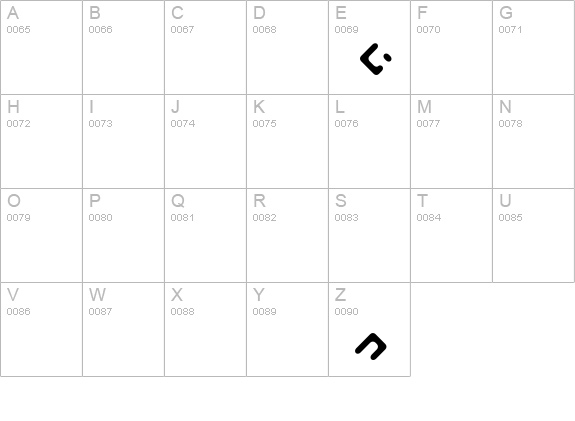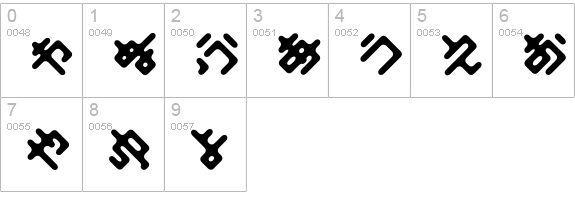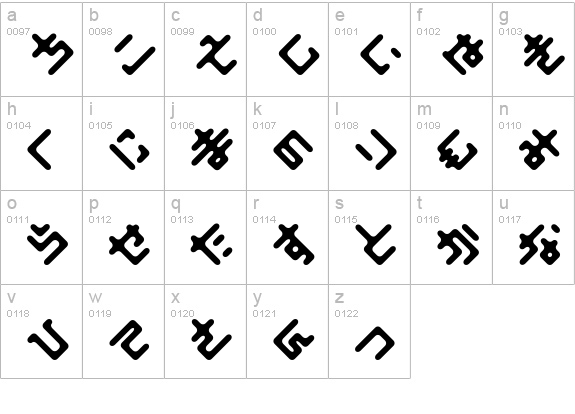
Elekitel font is a modern and stylish typeface that exudes sophistication and elegance. Its clean lines and sleek design make it perfect for a wide range of projects, from branding to editorial design. The font features a unique blend of sharp angles and soft curves, creating a harmonious balance that captures attention and conveys a sense of professionalism. What sets Elekitel font apart is that it is available for free download at FontsMarket.com. This means that you can easily access this high-quality font without any cost, making it a valuable addition to your font library. Whether you're working on a website, advertising campaign, or any other creative project, Elekitel font will help you make a bold statement and stand out from the crowd. Download Elekitel font today and elevate your designs with its modern aesthetic and versatility.